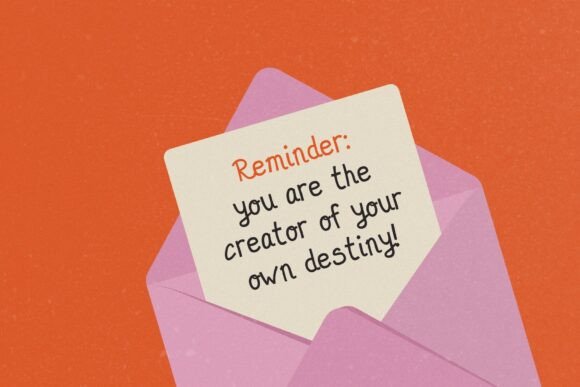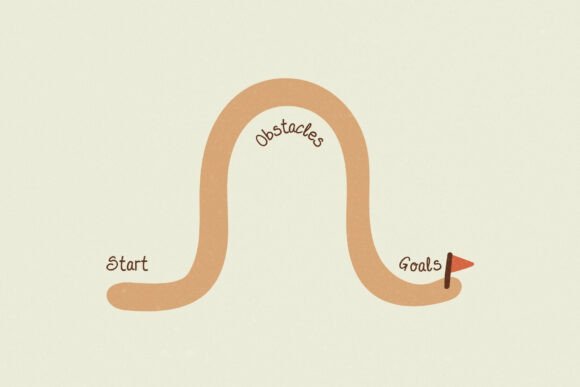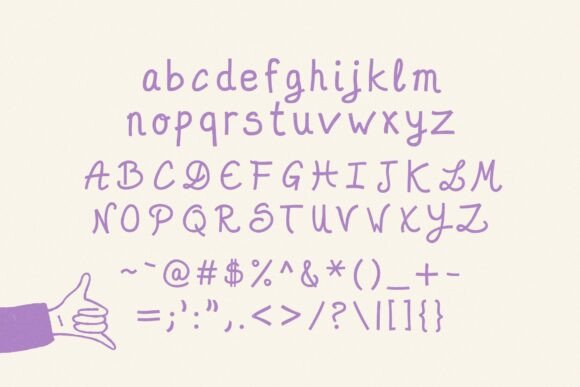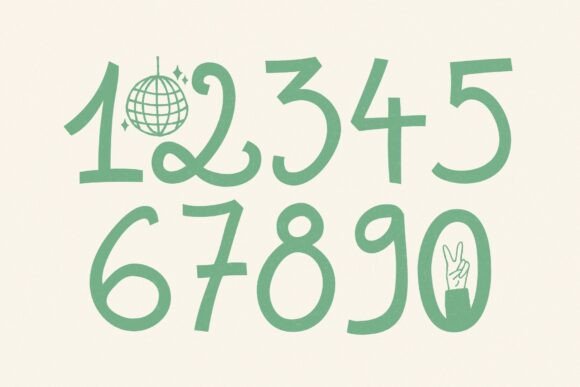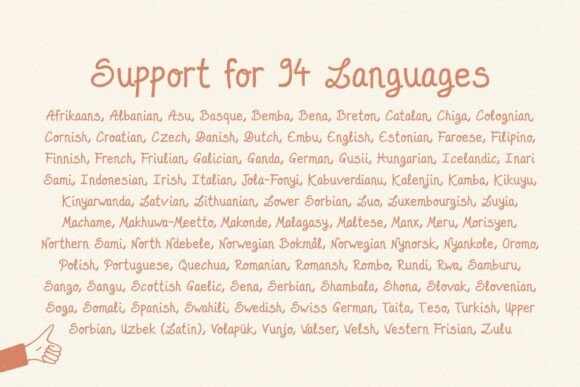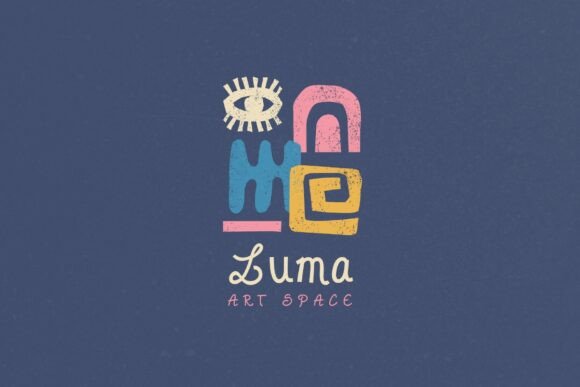
Introduction to Slightly Sketchy Font Font
Fonts play a crucial role in design, and the Slightly Sketchy Font font is a typeface that brings both character and versatility to any project. Whether you’re working on a branding project, a website, or a print design, the Slightly Sketchy Font font offers a unique style that can elevate your work.
Meet Slightly Sketchy, your new go-to font for all things playful, cute, and full of personality.
This adorably cheeky typeface was crafted to bring smiles, charm, and a touch of mischief to every design it touches With 427 glyphs and support for 94 languages, Slightly Sketchy is bursting with creative potential.
Key Features of Slightly Sketchy Font Font
Why Choose Slightly Sketchy Font Font?
The Slightly Sketchy Font font is more than just a typeface – it’s a design tool that helps you communicate your message with style and clarity. Its unique character set and versatile design make it suitable for a wide range of applications, from elegant invitations to bold headlines.
With its carefully crafted letterforms and balanced proportions, the Slightly Sketchy Font font ensures readability and visual appeal across all mediums.
What makes Slightly Sketchy Font font special?
The Slightly Sketchy Font font stands out with its unique design, exceptional readability, and versatility across various design applications.